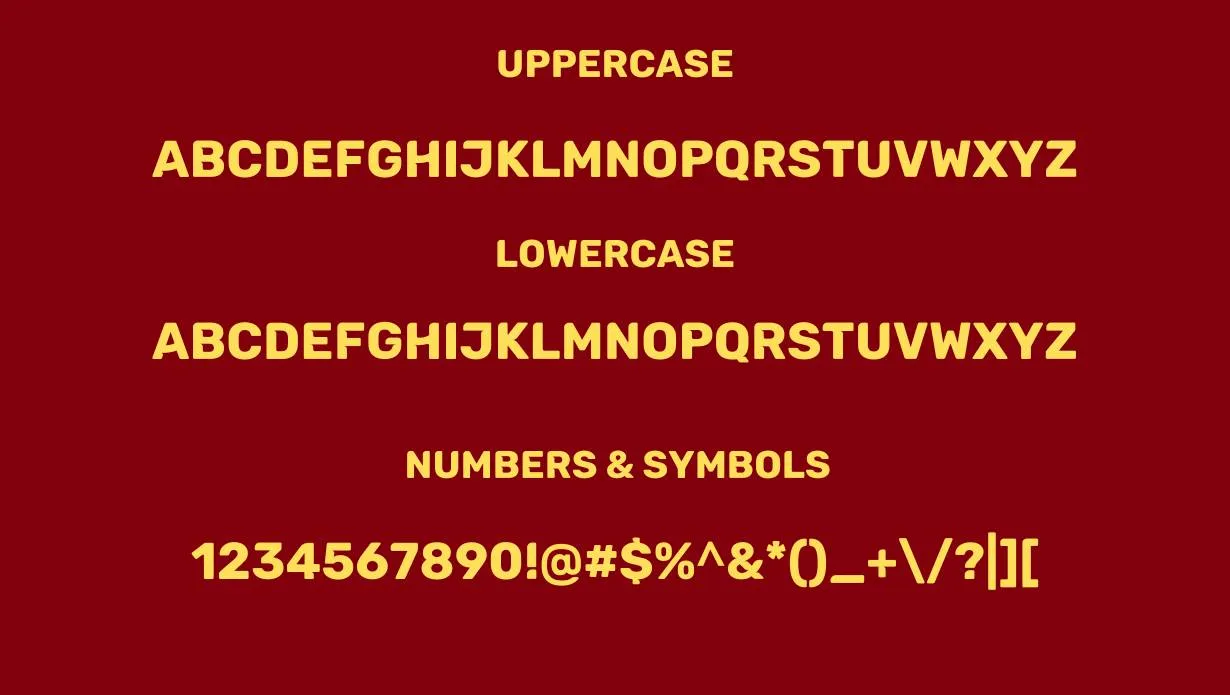
Cunia Font brings a touch of classic elegance with its well-proportioned and timeless letters. This font is suitable for projects that aim to evoke a sense of tradition and refinement. Use it for formal invitations, vintage-inspired designs, or any project where a touch of timeless sophistication is desired.
The technical details of Cunia Font include balanced lines and moderate weight, ensuring a polished and traditional appearance.
Cunia Font is crafted for projects that prioritize enduring elegance, creating a reliable choice for designs that require a timeless and refined aesthetic.
| Name | Cunia Font |
| Designer | Alejo Bergmann |